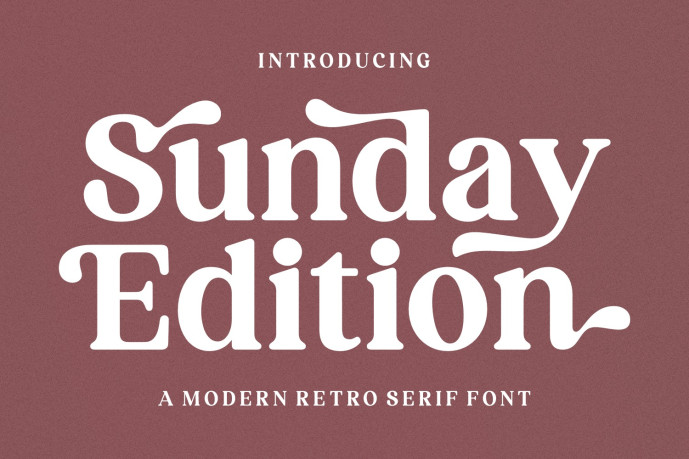
Sunday Edition Font
Embrace the warm, nostalgic charm of slow weekend mornings, vintage magazines, and classic editorial design with Sunday Edition, a modern retro serif font! Whether you are creating luxury cosmetic branding, vintage-inspired editorial layouts, aesthetic social media graphics, lifestyle product packaging, or romantic wedding invitations, Sunday Edition adds a touch of timeless class to any creative project.